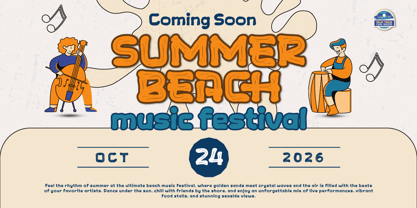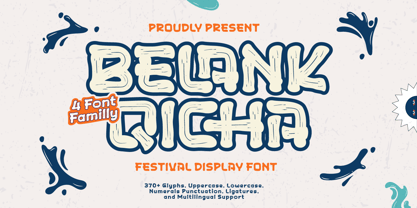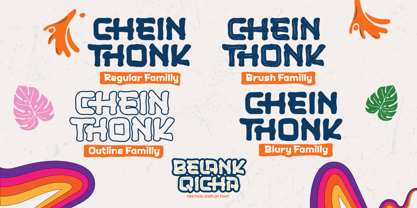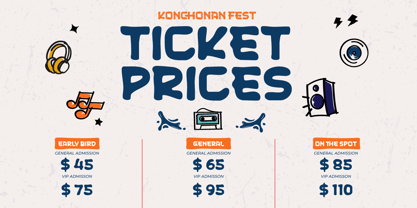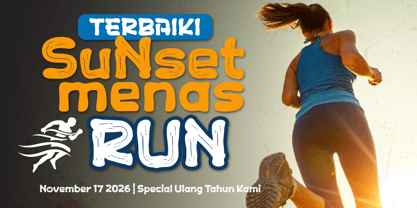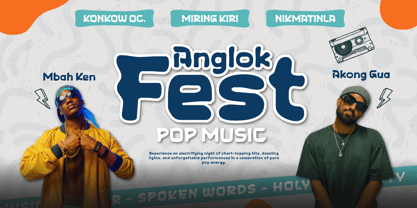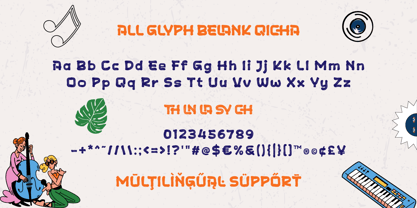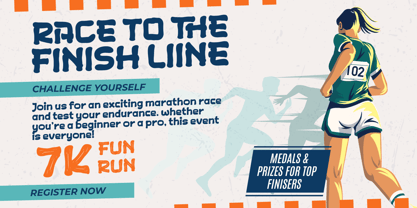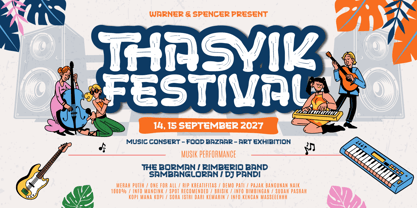
Belank Qicha
by Twinletter
The Belank Qicha Font Family was designed by Rozikan and published by Twinletter. Belank Qicha contains 4 styles and family package options. More about this family
Belank Qicha is a playful and energetic festival display font designed to bring fun and bold character to your creative projects. Inspired by the lively atmosphere of festivals, this font family comes with 4 unique styles—Regular, Outline, Brush, and Blury—giving you versatile options for eye-catching designs.
With 370+ glyphs, including uppercase, lowercase, numerals, punctuation, ligatures, and multilingual support, Belank Qicha is perfect for poster designs, event flyers, packaging, music covers, branding, and social media graphics. Its bold yet friendly personality makes it ideal for projects that need a vibrant and standout look.
Make your design festive, unique, and unforgettable with Belank Qicha!
- Fonts include Multilingual: Support for 85 languages.